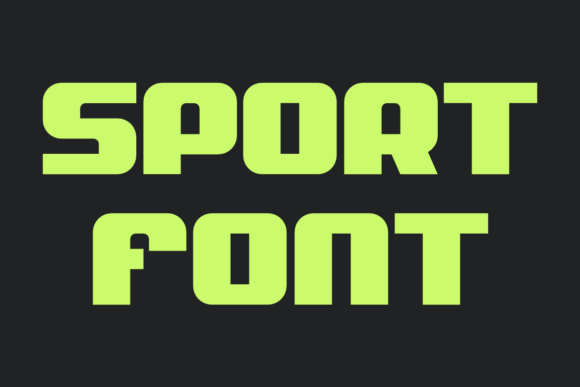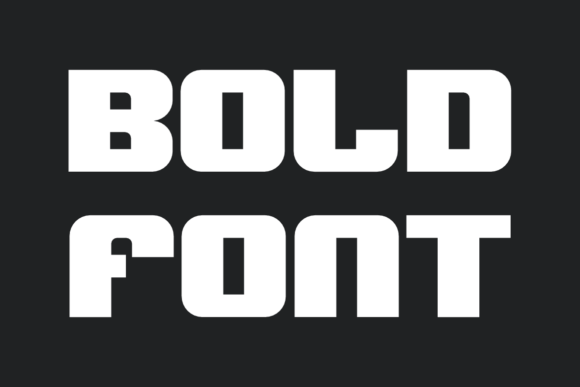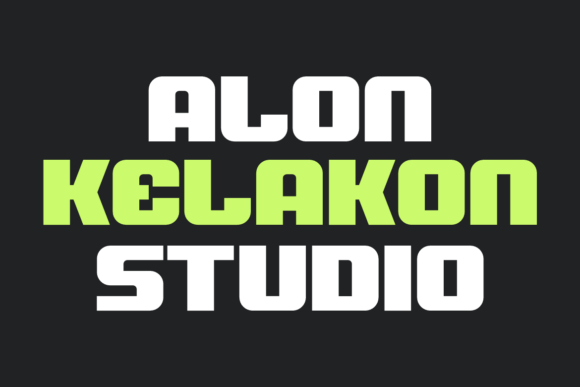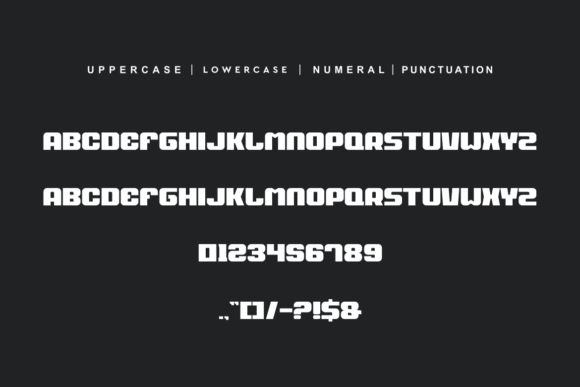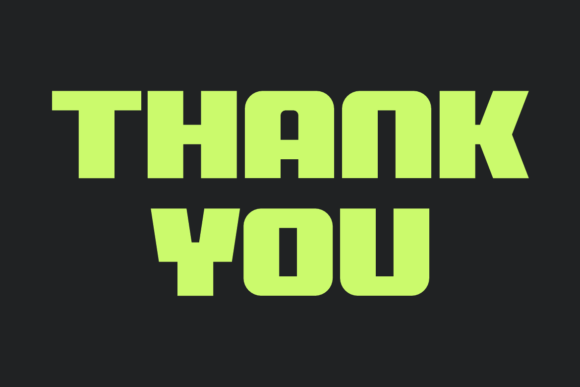
Introducing Brody Heroes Font: The Bold and Assertive Sans Serif for Your Creative Arsenal
In the world of design, the right font can make all the difference. It’s the unsung hero that brings your creative vision to life, adding depth, emotion, and impact to your work. If you’re on the hunt for a typeface that exudes confidence and boldness, look no further than Brody Heroes Font. This striking sans serif font is poised to become an indispensable asset in your fonts’ library, capable of elevating any project it touches.
The Power of Bold and Assertive Typography
Brody Heroes Font is not just any ordinary font. Its bold and assertive nature makes it perfect for designers and crafters looking to make a statement. Whether you’re working on a branding project, a website, a print advertisement, or any other creative endeavor, this font’s commanding presence ensures your message is delivered with clarity and conviction. Its sans serif design lends it a modern and clean look, making it versatile enough to be used across various platforms and applications.
Versatility at Its Core
One of the standout features of Brody Heroes Font is its incredible versatility. No matter the topic or theme of your project, this font seamlessly adapts, bringing a level of sophistication and professionalism that’s hard to achieve with more generic typefaces. From bold headlines to body text, Brody Heroes maintains its assertive yet approachable demeanor, ensuring consistency and quality across your design.
Elevate Your Creations
So, what makes Brody Heroes Font an incredible asset to your fonts’ library? The answer lies in its potential to elevate any creation. Here are a few ways this font can transform your designs:
• Grab Attention: In a world flooded with content, standing out is crucial. Brody Heroes Font, with its bold and assertive personality, ensures your message grabs attention and holds it.
• Convey Confidence: The font’s confident and modern look communicates a sense of reliability and professionalism, essential for building trust with your audience.
• Enhance Readability: Despite its boldness, Brody Heroes maintains a high level of readability, making it suitable for both digital and print applications.
• Encourage Engagement: By making your content more compelling and visually appealing, this font encourages engagement, inviting your audience to interact with your work.
Who Can Benefit from Brody Heroes Font?
Brody Heroes Font is a valuable resource for a wide range of professionals and creatives, including:
• Graphic Designers: Looking for a bold and versatile font to enhance their designs.
• Web Designers/Developers: Seeking modern and clean typefaces for their websites.
• Marketing and Advertising Professionals: Needing attention-grabbing fonts for campaigns.
• Crafters and Makers: Who want to add a professional touch to their handmade or digital products.
Brody Heroes Font is more than just a typeface; it’s a design powerhouse. Its bold and assertive sans serif style makes it an invaluable addition to any designer’s toolkit. Whether you’re aiming to make a statement, convey confidence, or simply elevate your creative projects, this font is up to the task. By incorporating Brody Heroes Font into your fonts’ library, you’re equipping yourself with the means to transform your designs, engage your audience more effectively, and bring your creative visions to life with impact and style.